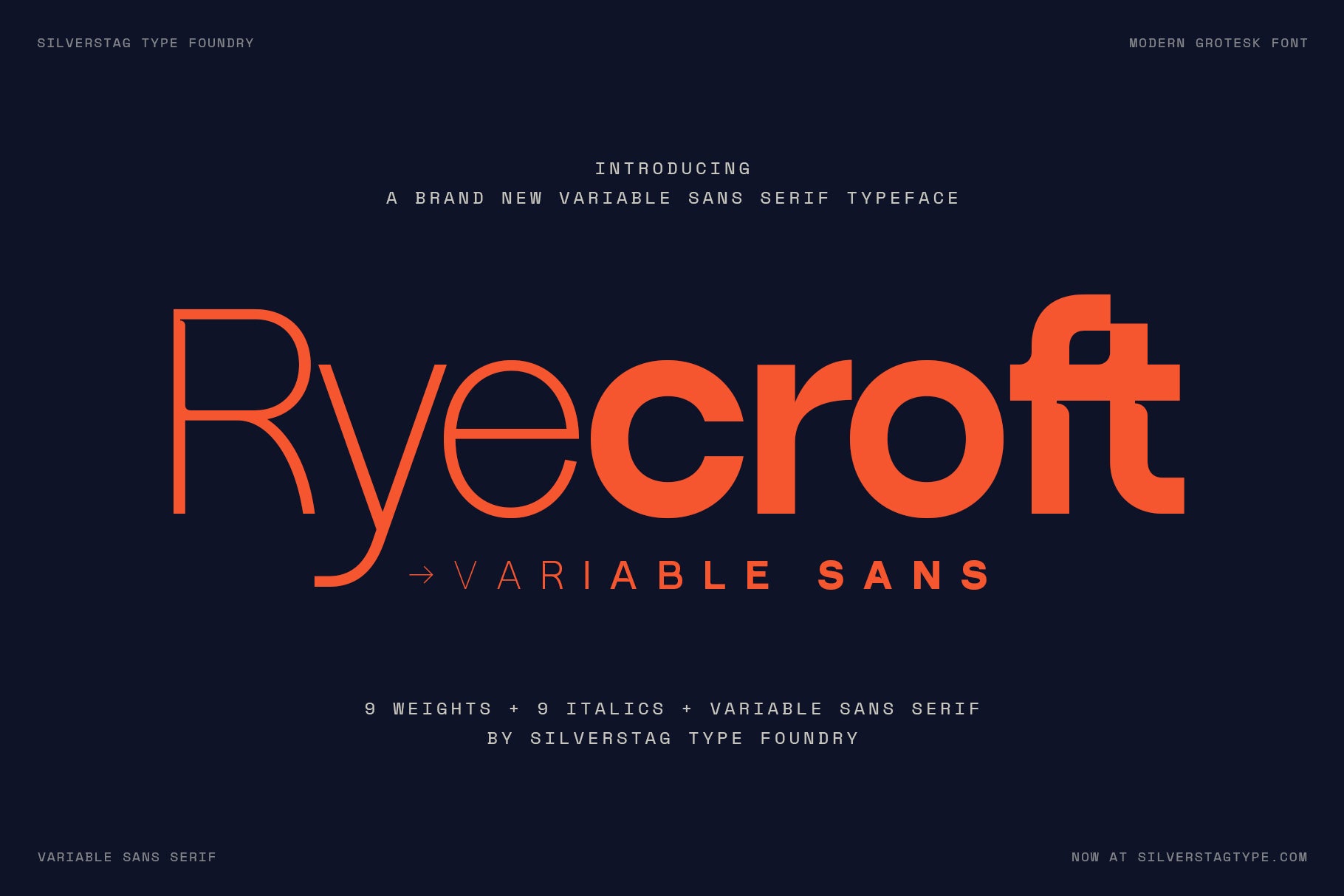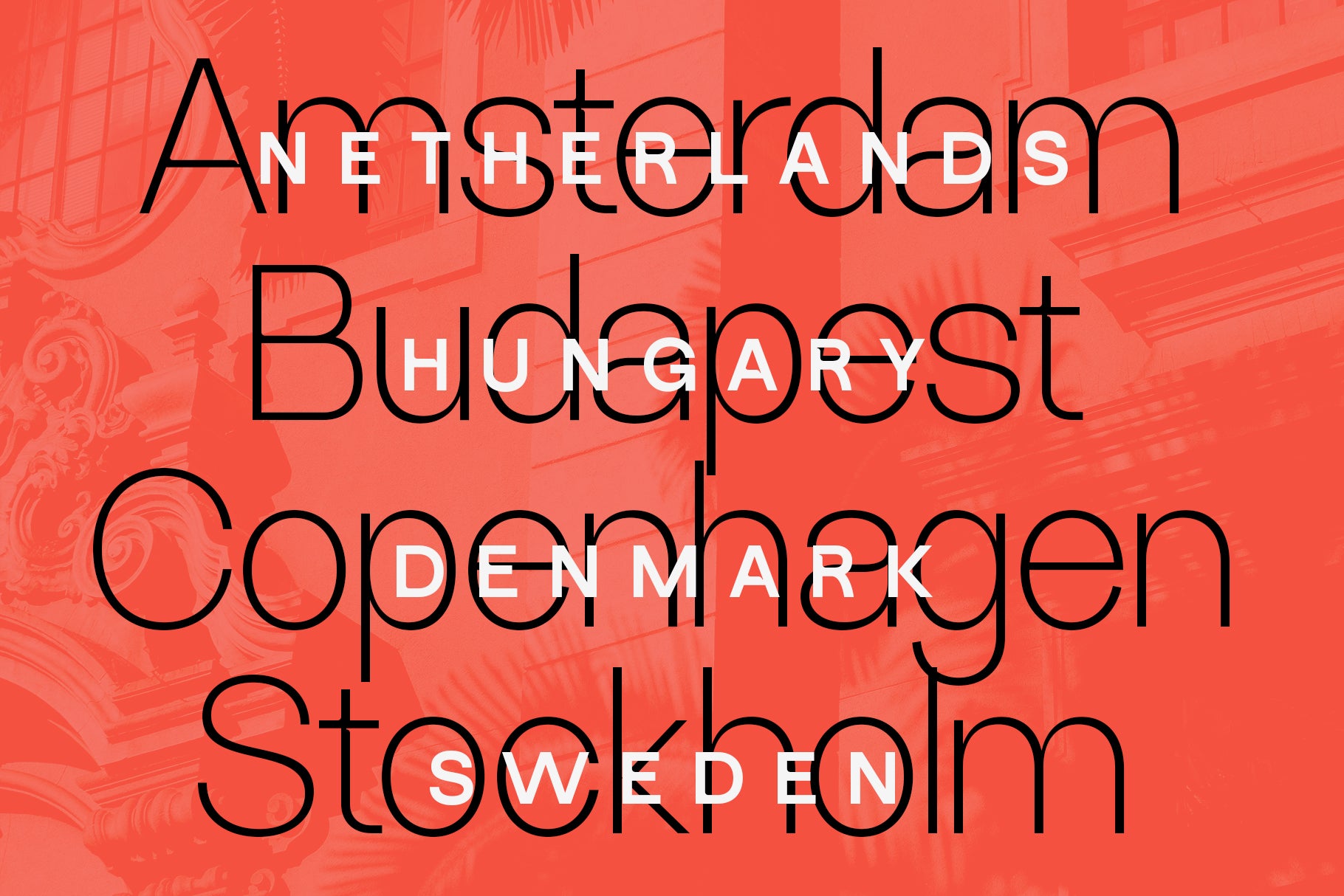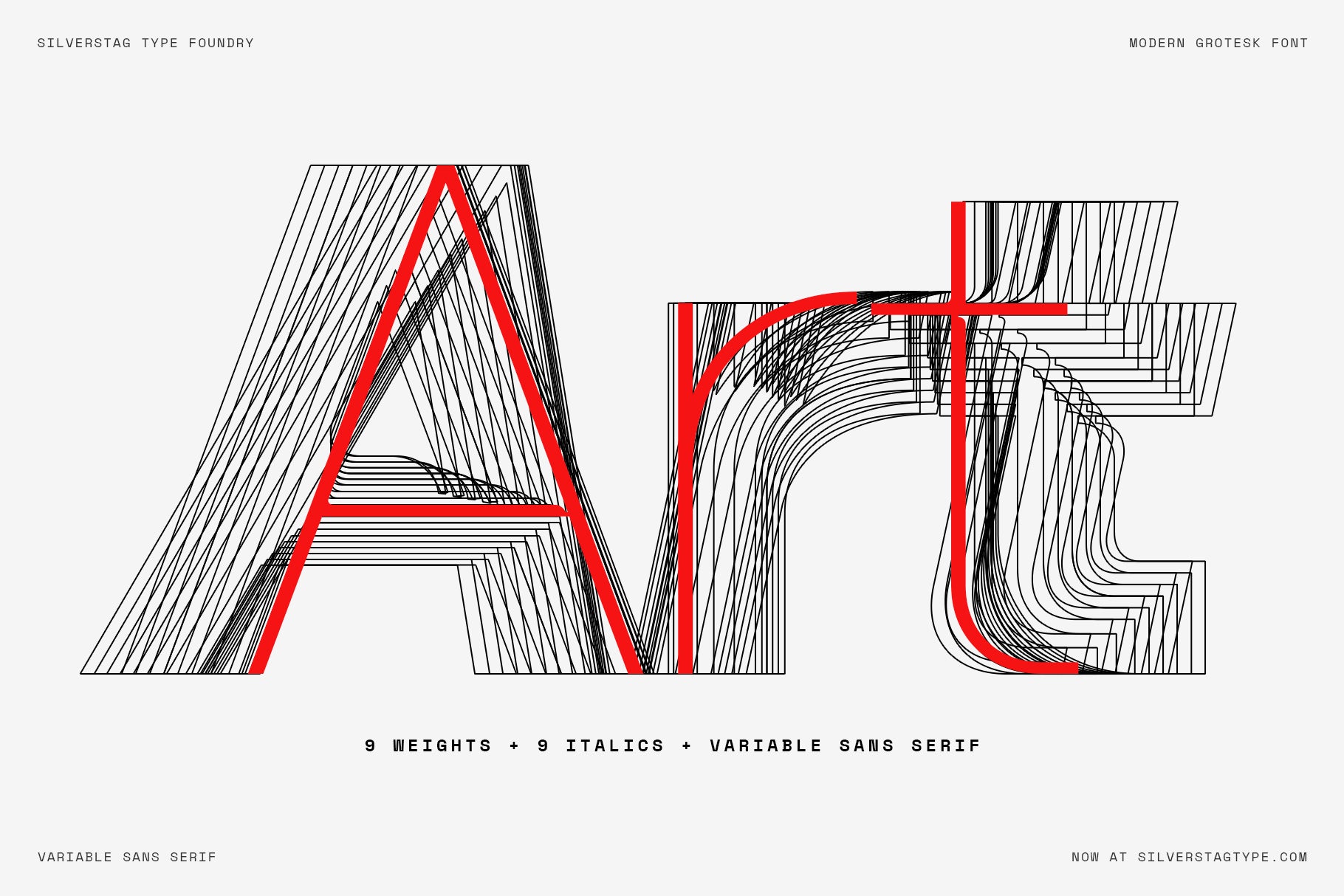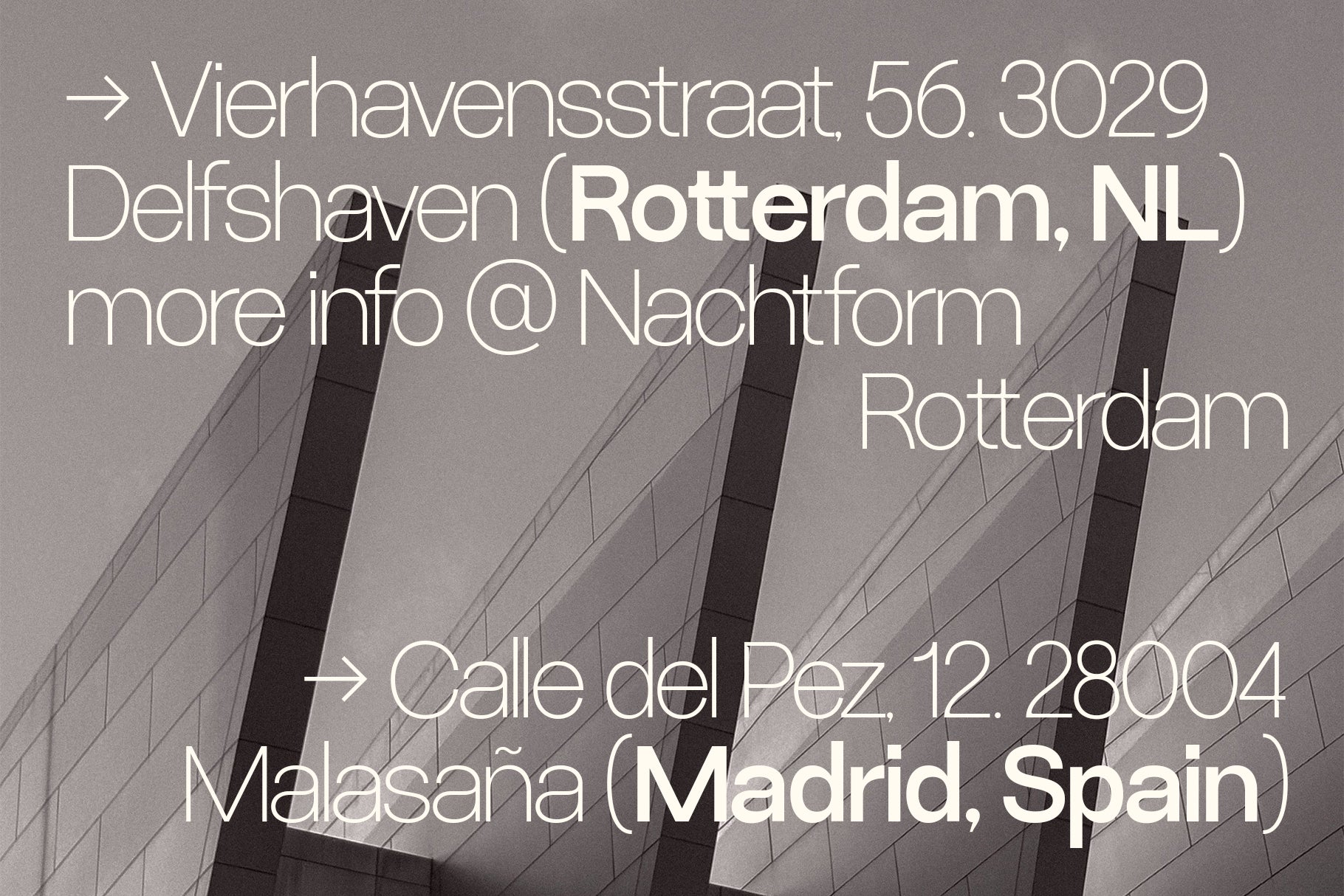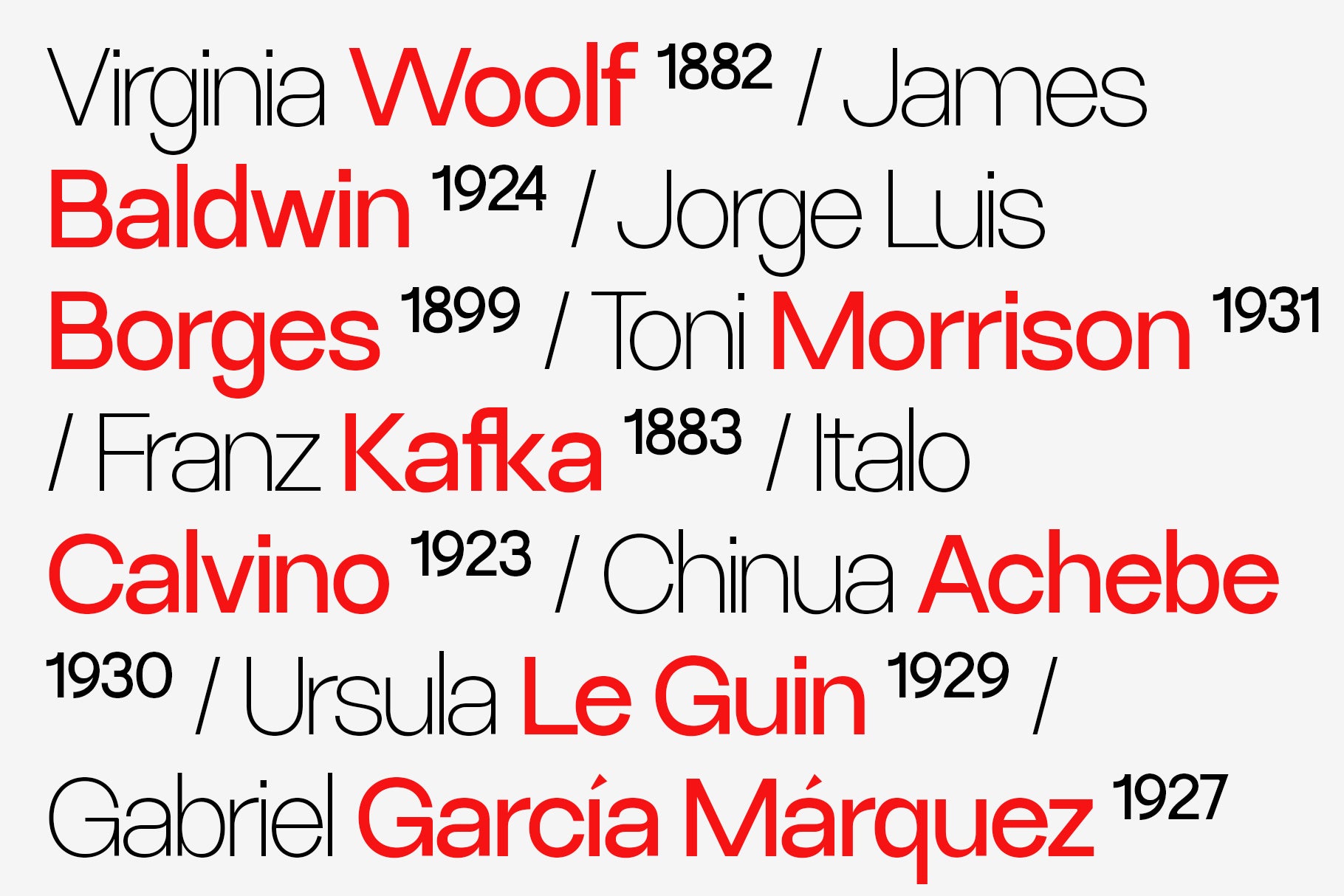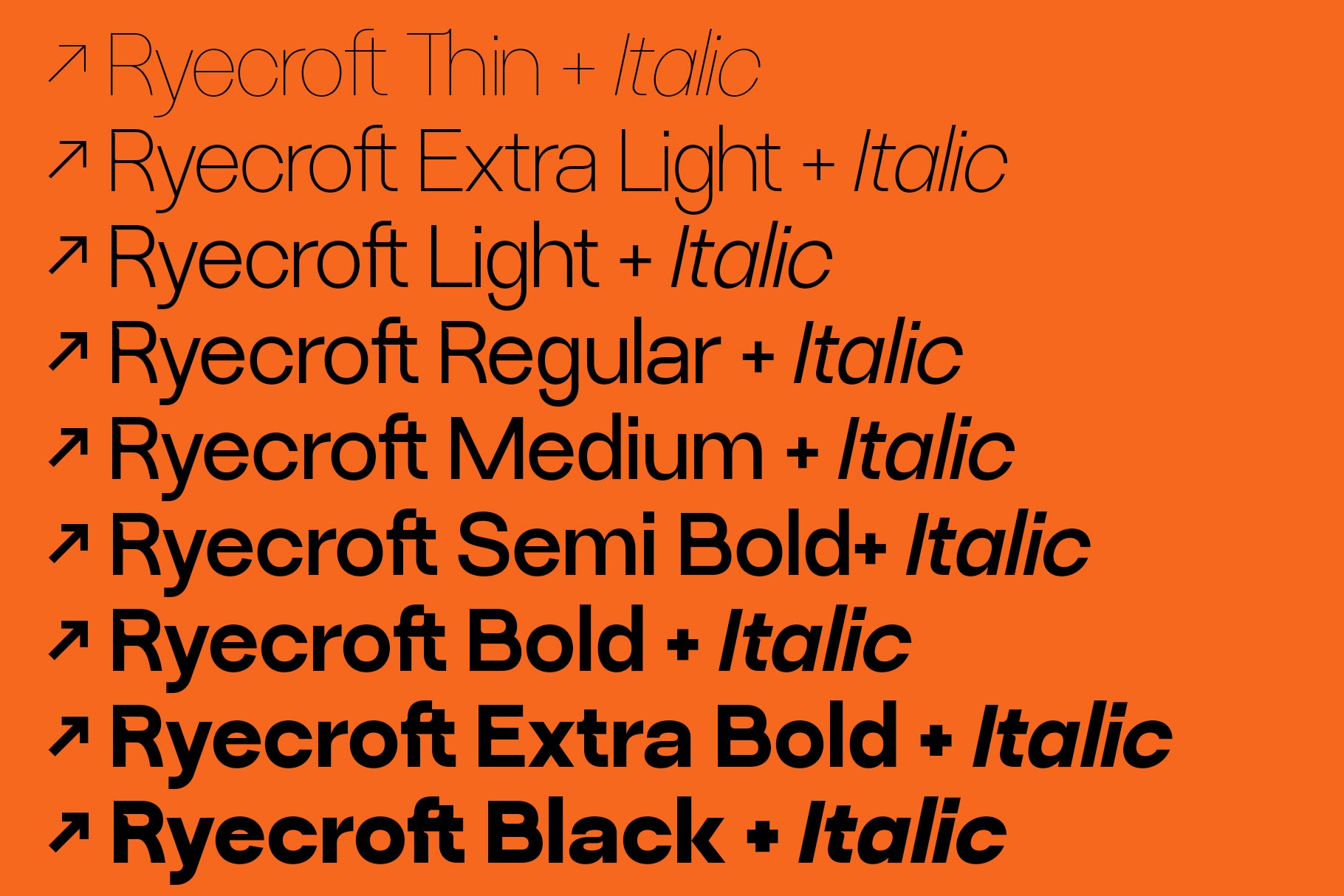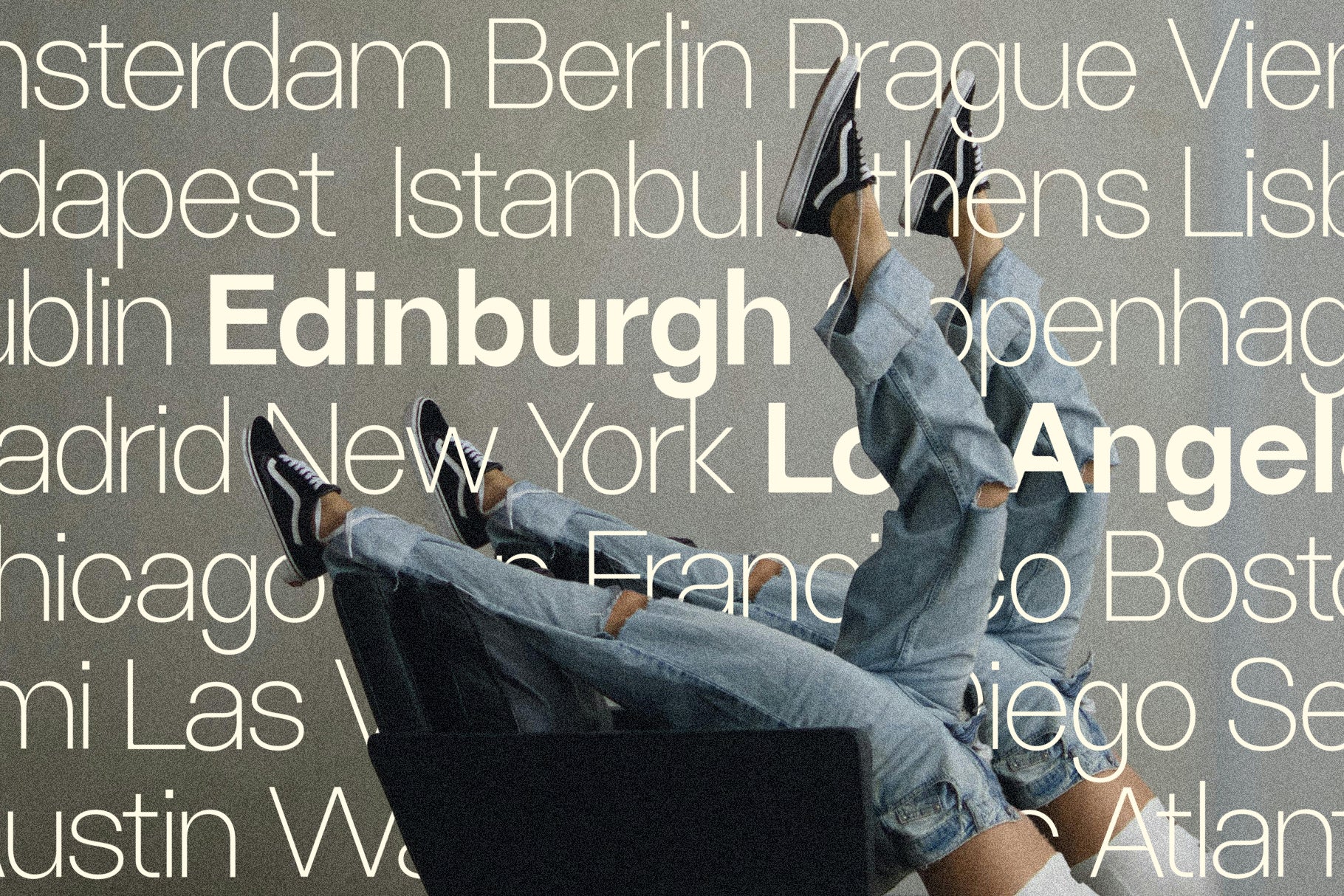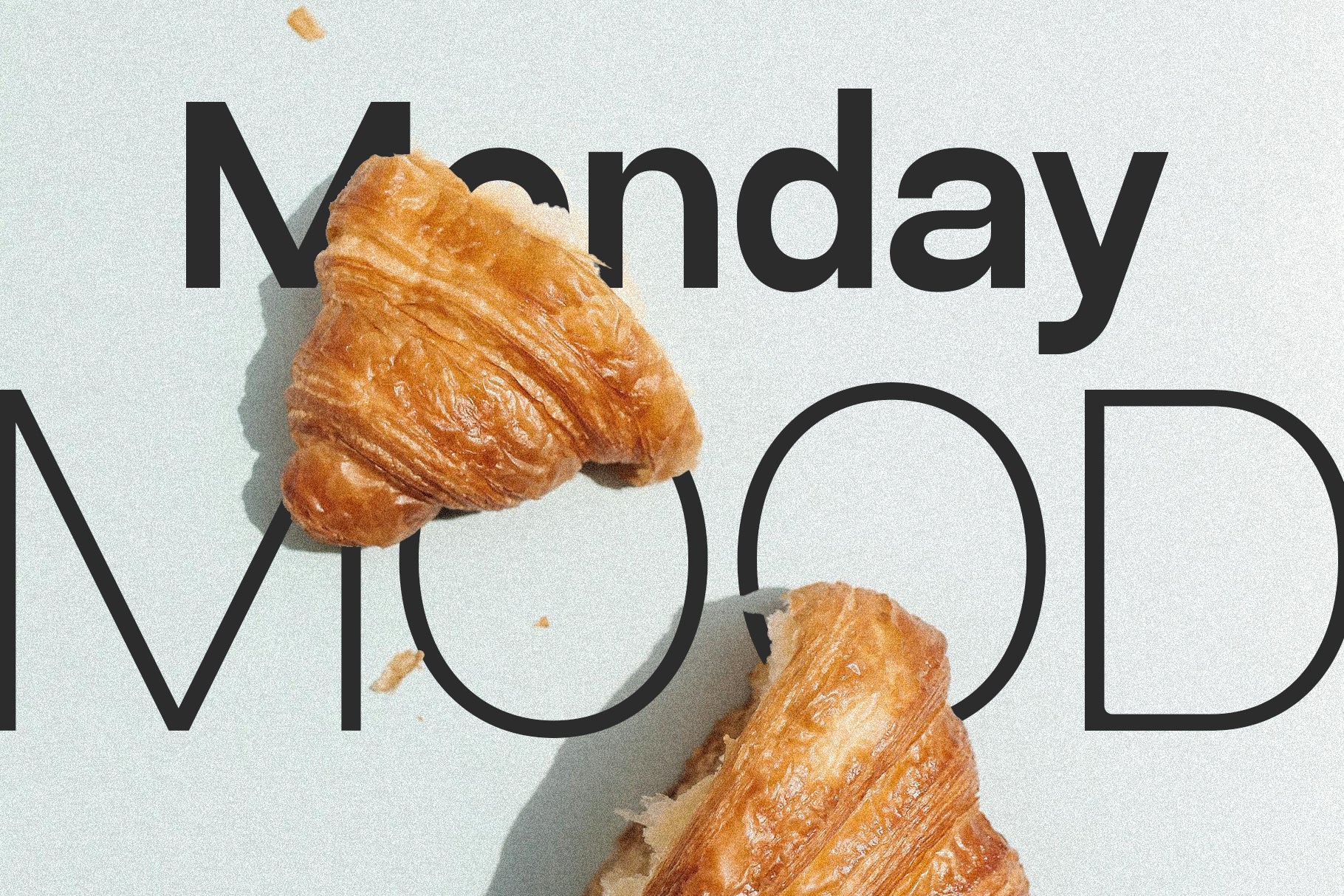
SLTF Ryecroft - Variable Sans Serif Typeface
SLTF Ryecroft is a modern grotesk sans serif in 9 weights, 9 true italics and a variable font.
I wanted a sans that could carry a whole brand on its own. Wide open counters, a low contrast skeleton and terminals cut clean, so it holds together at 8pt in a...
SLTF Ryecroft is a modern grotesk sans serif in 9 weights, 9 true italics and a variable font.
I wanted a sans that could carry a whole brand on its own. Wide open counters, a low contrast skeleton and terminals cut clean, so it holds together at 8pt in a caption and at 400pt on a poster. The Thin is fine enough to feel like a drawn line. The Black is heavy enough to stop a page. Everything in between is doing the actual work.
The italics are not slanted romans. They are drawn as true italics, and the two-story roman a becomes a single-story a in the italic, which changes the rhythm of a line of text far more than the angle does. Nine of them, one for every roman weight.
The variable font has two axes. Weight runs from 100 to 900, and an Italic axis takes you from upright to italic, with the alternate letterforms swapping in as you cross over. One file, the full range, and every point in between the named instances.
Over 750 glyphs per style, with extensive Latin coverage: Western, Central and South Eastern European, Vietnamese, Sámi, Pan African and IPA. Old style figures, tabular figures, fractions, arrows, case sensitive forms and a full set of currency symbols.
It works hard in editorial layouts, fashion and beauty branding, packaging, signage, wayfinding, presentations, interfaces and identity systems. It behaves in long text and it performs at display sizes, which is a harder combination to get right than it sounds.
- 9 weights: Thin, Extra Light, Light, Regular, Medium, Semi Bold, Bold, Extra Bold, Black
- 9 matching true italics
- 1 variable font with Weight and Italic axes
Are the italics real italics or obliques?
Real italics. They are drawn separately, with a single-story a replacing the two-story roman form, plus reshaped letters through the rest of the lowercase.
How does the variable font work?
It carries two axes. Weight from 100 to 900, and Italic from 0 to 1. Sliding the Italic axis swaps in the true italic letterforms rather than slanting the upright ones.
SLTF Ryecroft interpolation specimen on light grey. The word Art is drawn as stacked wireframe outlines of every weight in the family, from Thin to Black, layered on top of one another so the interpolation path is visible as a mesh of black contours. A red hairline skeleton of the same word sits over the top. A line beneath reads nine weights, nine italics and variable sans serif.
SLTF Ryecroft print mockup. A card printed with large heavy numerals - 012 across the top and 7890 across the bottom - sits inside a cream envelope with a translucent paper band across the middle. Ryecroft is printed on the band in mixed weights, thin through heavy, with the words Variable Sans letterspaced below it. The numerals show through the band as soft grey shapes.
SLTF Ryecroft specimen on light grey pairing writers with their birth years. First names sit in the thin weight in black while surnames are set in bold red - Virginia Woolf 1882, James Baldwin 1924, Jorge Luis Borges 1899, Toni Morrison 1931, Franz Kafka 1883, Italo Calvino 1923, Chinua Achebe 1930, Ursula Le Guin 1929 and Gabriel Garcia Marquez 1927. Years are set as small raised figures.
SLTF Ryecroft specimen over a grey photograph of two pairs of legs in ripped denim and black trainers kicked up over the back of a sofa. A dense grid of city names in a light cream weight runs behind and across the photograph, including Amsterdam, Berlin, Prague, Budapest, Istanbul, Dublin, Madrid, New York and Chicago, with Edinburgh and Los Angeles picked out in bold.
SLTF Ryecroft letterform specimen on a grainy off-white ground. A heavy black capital A and lowercase a are set side by side at large size, showing the two-story construction of the roman a. Lime green graphic elements frame the pair - an arrow bracket in the top left, a diagonal bar running behind the letters and a second bracket in the lower right.
SLTF Ryecroft branding mockup over a black and white photograph of a building facade shot from below. L'actualite is set large in a thin cream weight, with a big translucent red arrow graphic angling across the frame behind it. A justified paragraph in the light weight below describes the fashion brand Blanc Elegance. Rails at the top and bottom carry the foundry name and the website address.